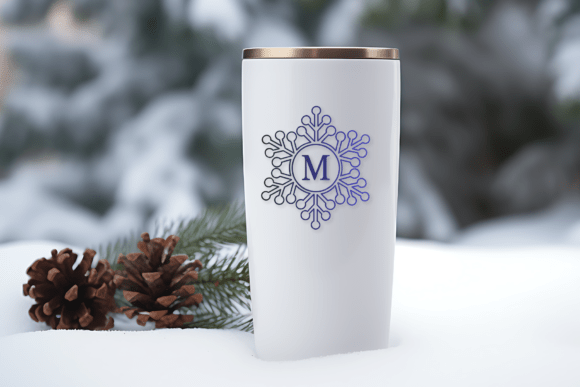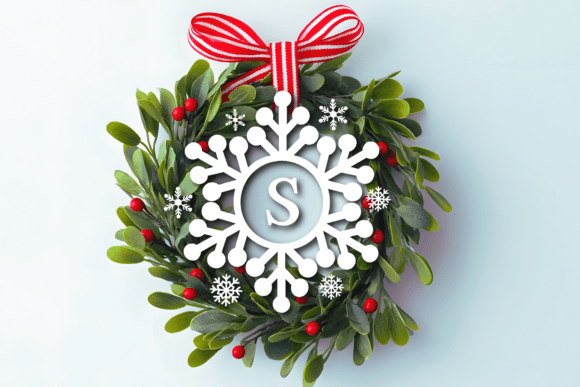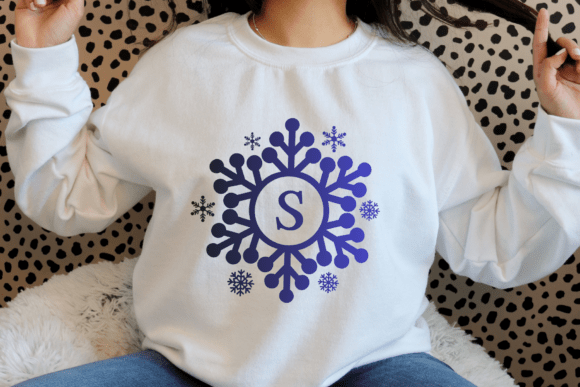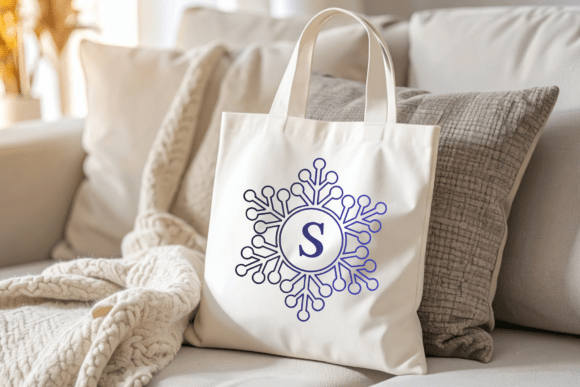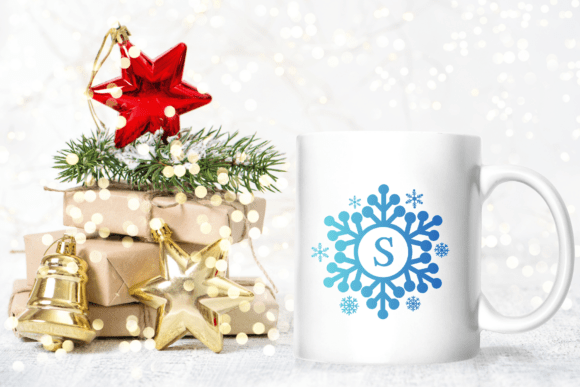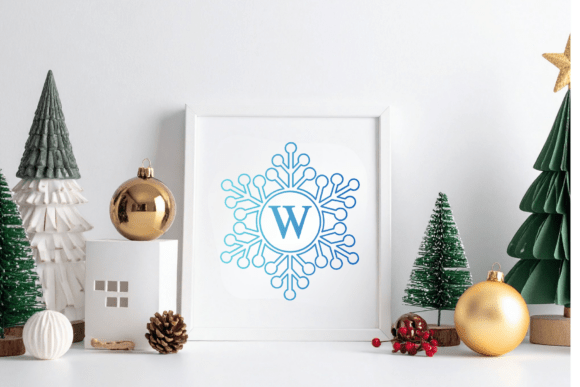
Introducing Crystal Snow Monogram Font: Elevate Your Winter Designs with Elegance
As the winter season approaches, designers and crafters are on the lookout for unique and captivating elements to add a touch of magic to their projects. If you’re seeking a font that embodies the essence of winter wonderland, look no further than the Crystal Snow Monogram Font. This exquisite typeface is specifically designed to bring a dash of frosty charm and sophistication to your creative endeavors, making it perfect for holiday cards, winter crafts, invitations, logos, ornaments, and seasonal decorations.
What is Crystal Snow Monogram Font?
Crystal Snow Monogram typeface is an elegant winter-themed font that features delicate snowflake designs around each letter. The intricate details of the snowflakes add a level of sophistication and whimsy, making it an ideal choice for those who want to create visually stunning winter-inspired projects. The font’s monogram style allows for a personalized touch, making it perfect for customizing your designs.
Key Features of Crystal Snow Monogram Font
- Elegant Winter Design: The font features intricate snowflake designs around each letter, giving it a unique and festive look.
- Monogram Style: The font’s monogram style allows for a personalized touch, making it perfect for customizing your designs.
- Versatile: Crystal Snow Monogram Font is suitable for a wide range of projects, including holiday cards, winter crafts, invitations, logos, ornaments, and seasonal decorations.
- Frosty Charm: The font’s delicate snowflake designs add a touch of frosty charm and sophistication to your projects.
Uses for Crystal Snow Monogram Font
Crystal Snow Monogram Font is an incredibly versatile typeface that can be used in a variety of creative projects. Here are some ideas to get you started:
- Holiday Cards: Add a touch of elegance to your holiday cards with the Crystal Snow Monogram Font.
- Winter Crafts: Use the font to create beautiful winter-themed crafts, such as snowflake decorations or winter wonderland scenes.
- Invitations: Make your winter-themed invitations stand out with the font’s delicate snowflake designs.
- Logos: Use the font to create a unique and memorable logo for your winter-themed business or product.
- Ornaments: Create beautiful winter-themed ornaments with the font’s intricate snowflake designs.
- Seasonal Decorations: Use the font to create stunning seasonal decorations, such as winter-themed banners or garlands.
Tips for Using Crystal Snow Monogram Font
To get the most out of Crystal Snow Monogram Font, here are a few tips to keep in mind:
- Experiment with Colors: Try pairing the font with different colors to create a unique and eye-catching look.
- Mix and Match: Combine the font with other winter-themed elements, such as snowflakes or pinecones, to create a cohesive look.
- Pay Attention to Details: Take the time to carefully craft your design, paying attention to the intricate details of the snowflake designs.
Crystal Snow Monogram Font is a beautiful and elegant winter-themed typeface that is perfect for designers and crafters looking to add a touch of frosty charm and sophistication to their projects. With its delicate snowflake designs and monogram style, this font is sure to elevate your winter designs and make them stand out. Whether you’re creating holiday cards, winter crafts, invitations, logos, ornaments, or seasonal decorations, Crystal Snow Monogram Font is the perfect choice.